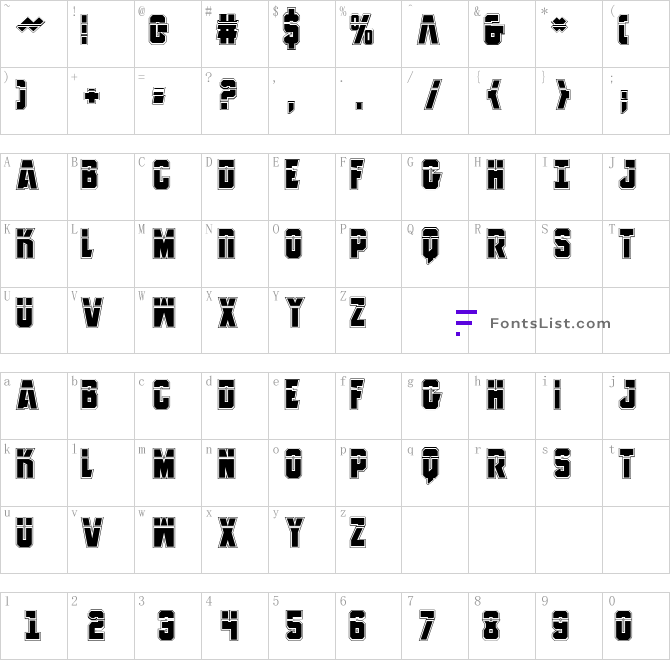
- Font Name:Anitlles Laser Academy
Anitlles-Laser-Academy.ttf is a very beautiful artistic font, Anitlles-Laser-Academy.ttf is widely used in the design and printing of various books and pictures,Anitlles-Laser-Academy.ttf has a strong visual impact,Anitlles-Laser-Academy.ttf is a commonly used font in newspapers, magazines and books, and is used in posters, e-commerce Poster design, store design, logo design, font design and other fields.Anitlles-Laser-Academy.